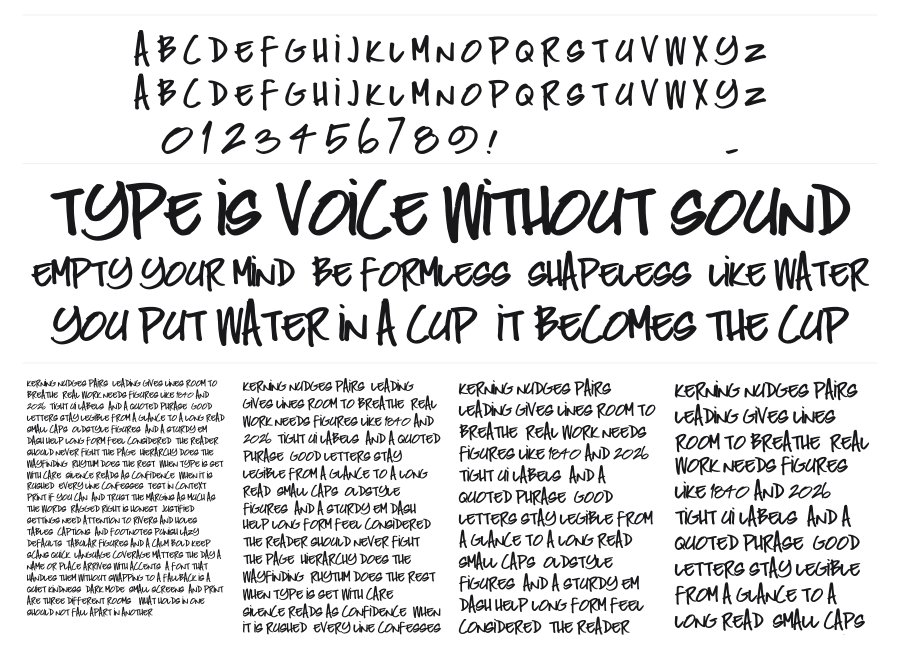
Peak
by kaboom creative
Peak is a bold, brush-driven uppercase face from kaboom creative that captures the energy of quick, confident marker strokes. The letterforms are thick and informal, with visible texture and natural variation that keep it from feeling too polished. Works well for headlines, packaging, and social media where you want something hand-lettered and punchy without the fuss of actual brush work.